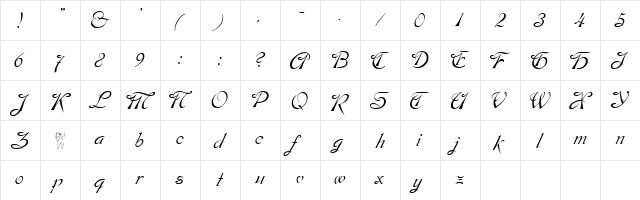
Knickerbocker Plain Font Preview
Knickerbocker Plain
Design Context for Knickerbocker Typeface
Knickerbocker is a composed and adaptable typeface that performs quietly and consistently across a wide range of design contexts.